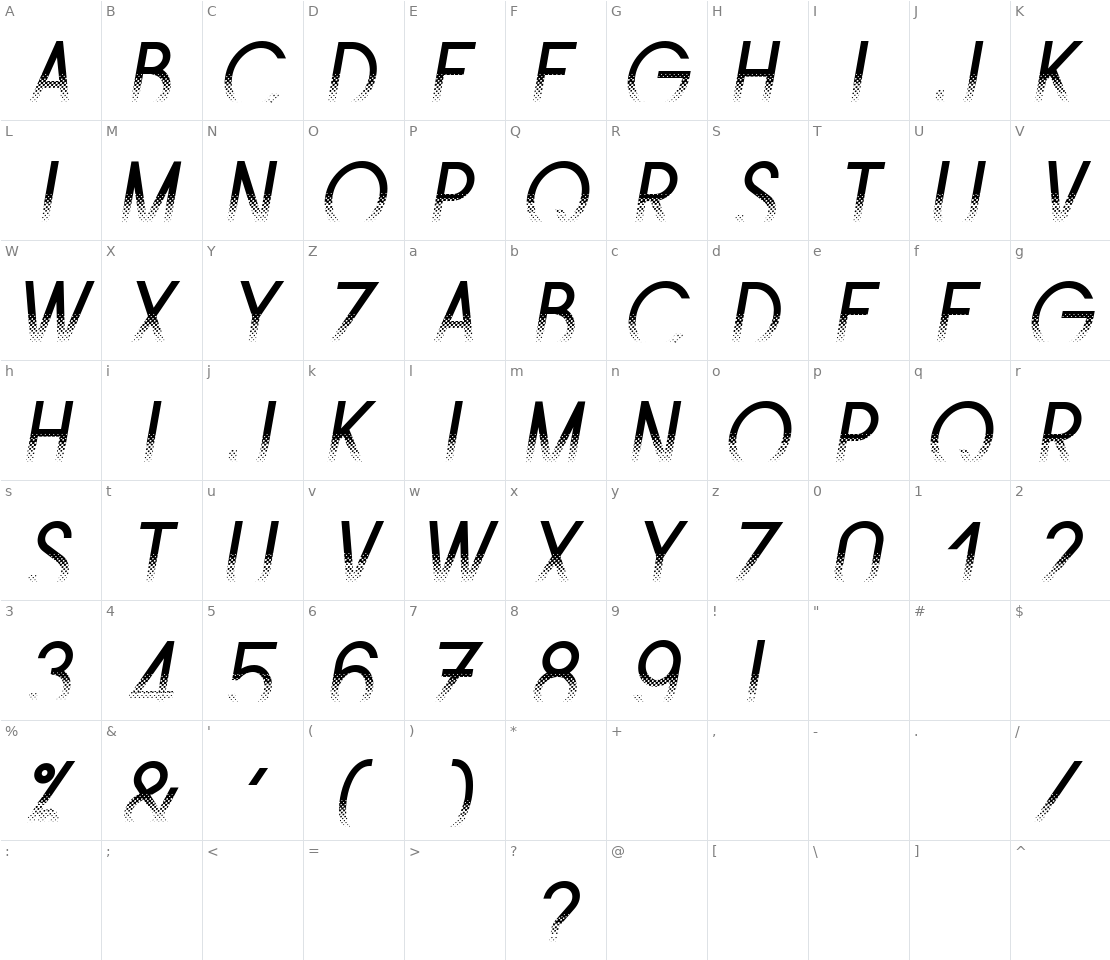
Ams Trame
by Luc Mahler
Ams Trame is a decorative uppercase display face by Luc Mahler where each letterform is filled with a halftone gradient pattern, giving the type a textured, screen-printed quality. The italic slant adds forward motion, and the dotted fill creates a visual density that works best at poster scale. It's built for headlines and large display settings where that gritty, print-shop texture can really come through.